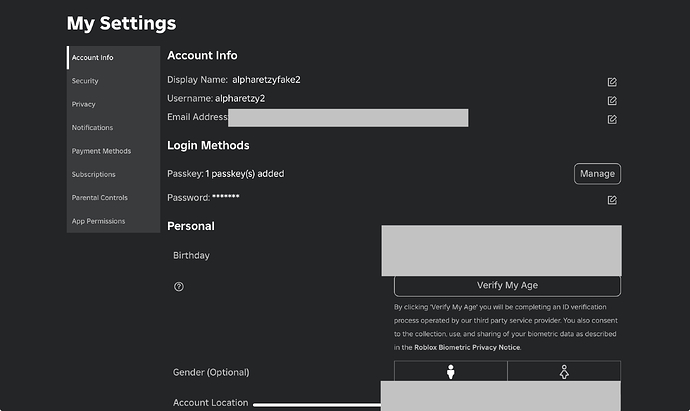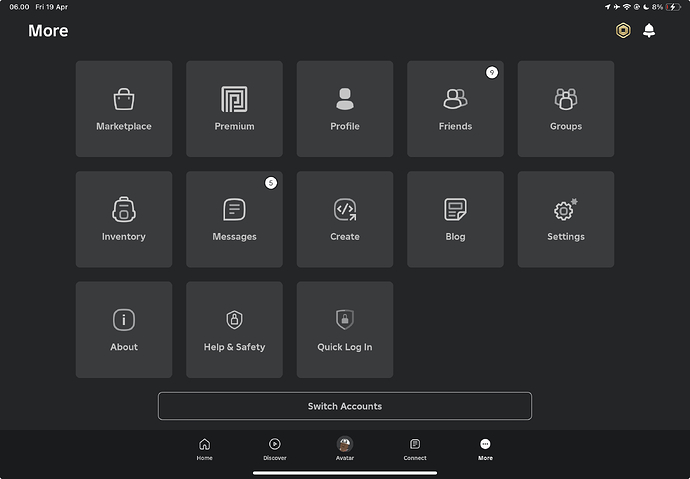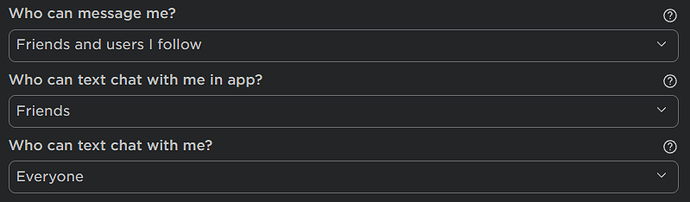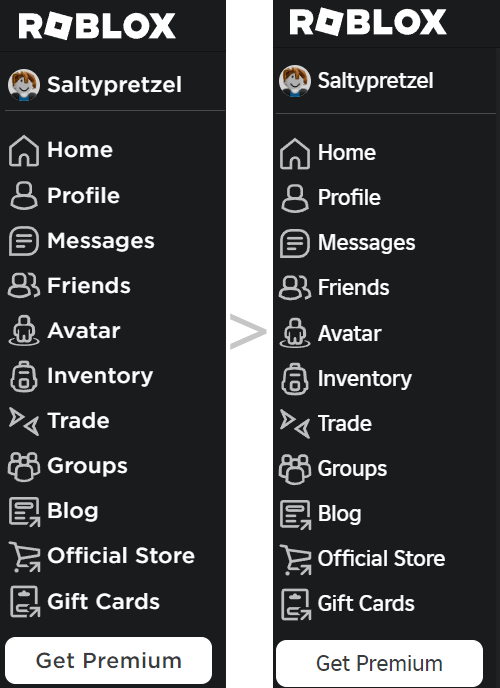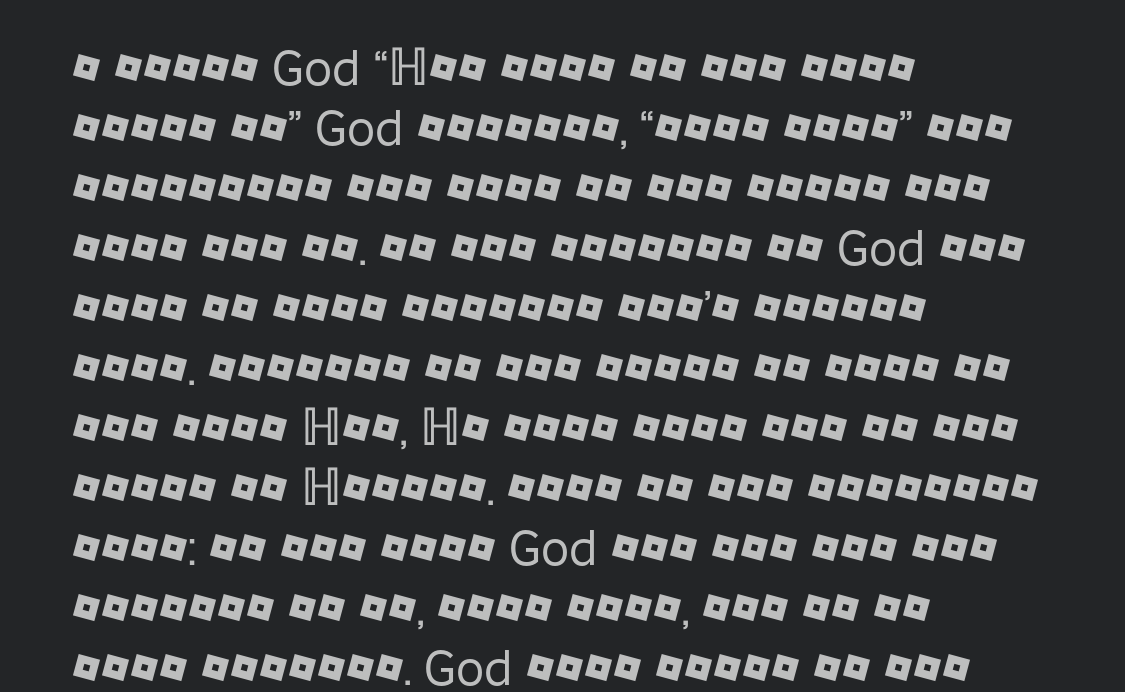
As you see here, Gotham and Montserrat are completelly different.
I saw modules for custom fonts anyways.
But yeah, custom fonts would be great.
I feel I have sufficient options that I don’t care about the font deprecation, but I would like to know why they’re being removed - is it the boring “license costs money” reason?
most of my game’s ui relies on gotham and arial. This potentially might break my game.
Yet another change that can ruin many peoples games springing up from out of nowhere with no prompting, just so Roblox can save an extremely small sum of money by not paying licensing fees. Typical. Lemme go over what I think some of the replies in support of this will be like.
- “B-b-but Roblox need the money and they shouldn’t be wasting it on stuff like fonts!!!”
Fonts, while definitely expensive to license, aren’t THAT expensive compared to what Roblox makes and puts into the site and client on a daily basis. Even the most expensive ones. I think we have bigger things to worry about than some words on a screen if this is based purely on cutting costs.
Also, let’s remind ourselves that Roblox are constantly pumping tons of money into features that realistically won’t earn them money at all (e.g. that calling thing they did a few months back). They absolutely have the capital and reasons to keep the old fonts. They just chose not to, for some reason.
- It’s just a font. Why does it matter?
It matters because they’ve been the main choices for so long. People have created entire UI systems that rely on the specific look and style of Gotham and Arial, and removing them will at best slightly ruin the style the game has, and at worst could have the potential to completely bork games visually. I don’t doubt that it’ll happen to at least one game out there.
- I think the fonts look cool, and they don’t impact my games
Cool! I agree, the fonts look nice. But not everyone can say that their games aren’t impacted by this. Even if slightly minor.
There’s no reason to remove the old fonts. If it isn’t broken, don’t fix it. It’s as simple as that.
I recently ported my older experience with hundreds of GUIs to use Gotham. I am not really pleased with this considering the replacement font is nowhere near the similarity of Gotham.
New font? Cool.
People will have to get used to new font (and people won’t like the change ig)
Also, the removal of Gotham and Arial is stupid. Why Roblox wants to remove 2 fonts that are free to use and replace them with skinnier version???
(Roblox needs to give us better features, not the font changes)
Cool… but what’s the point of removing the other fonts, I for one like Ariel font, I guess for any UI I’ll be making it in Photoshop and importing it as an image, that may not be the best but at least I’ll have more freedom
I understand the possibility of licensing issues being the reason behind removing Gotham, but I’m seeking out the chance that FigTree on Google Fonts be uploaded to the platform as it’s replacement.
It’s the closest font I’ve seen to date to Gotham, and I’ve been hoping for it to be used on the platform in the future
Here’s an image I created for comparison reference
I’d be much more fine with this than whatever they decided to choose. It’s at least close to what Gotham is.
While I think this is great, I dislike the fact that we are being forced to change it. Having it be a new font without having to deprecate Arial and Gotham would definitely give some more options. I would be more open to this if there was more customization to the font other than just how thick the text is. But currently, I have mixed feelings about this.
New font, cool, blah blah… BUT SINCE WHEN HAVE WE BEEN ABLE TO INSTALL OTHER FONTS ![]()
What was wrong with Gotham and Arial?
Since this:
You could always install other Fonts, but only Roblox could upload them.
The other thing you could do is to use ImageRectOffset and ImageRectSize to have a “spritesheet” with letters… but dunno how good that would be, and use fonts from images with the most horrible conversions that exist that converts text and places it to images.
Won’t this change break 90% of the games who commonly use Gotham for their UI? Giving us only a month to catch up isn’t enough time for developers to redesign their games,
Would the font be compatible with Japanese?
oh you have a point, it would break if the font sizes of the font itself, not the… font size property…
but if the replacement is really really alike, in their size, then maybe it should be fine ![]()